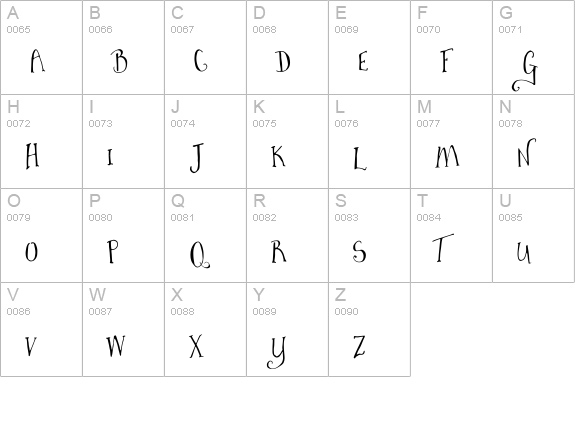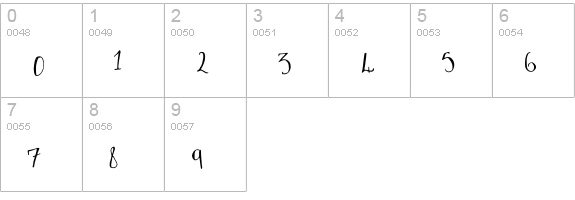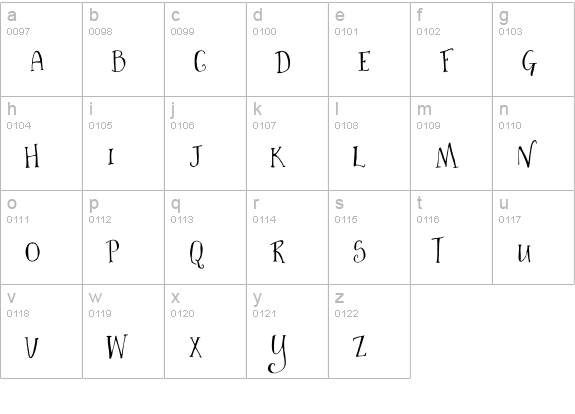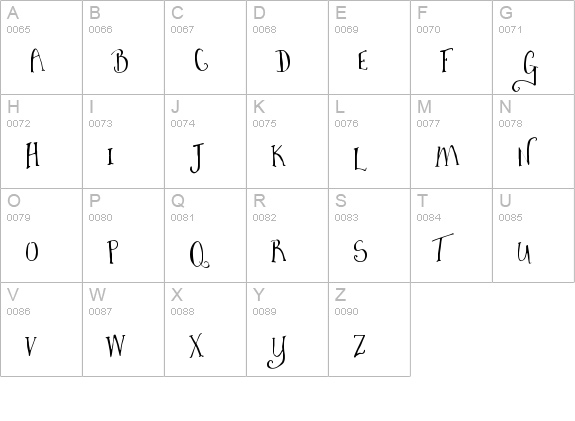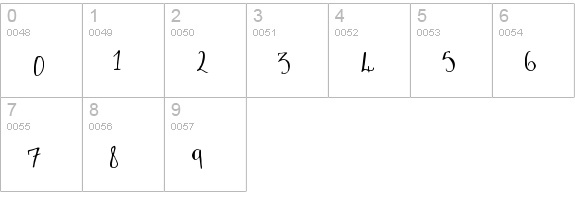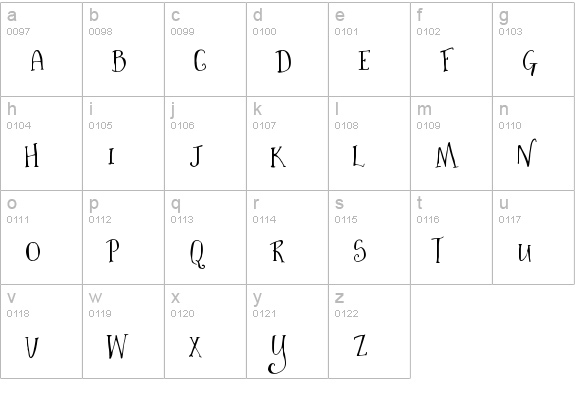
VanillaFrostingPlain Font Details
Introducing VanillaFrostingPlain font, a delightful and whimsical typeface perfect for adding a touch of sweetness to your projects. This charming font embodies a playful and friendly aesthetic, making it ideal for a variety of design applications. With its clean lines and smooth curves, VanillaFrostingPlain exudes a sense of elegance and sophistication. The best part? VanillaFrostingPlain font is completely free to download at FontsMarket.com! Whether you're working on a creative project, designing invitations, or crafting a logo, this lovely font is sure to elevate your work with its unique style and versatile appeal. Embrace the beauty of VanillaFrostingPlain font and let your creativity shine with this enchanting typeface.